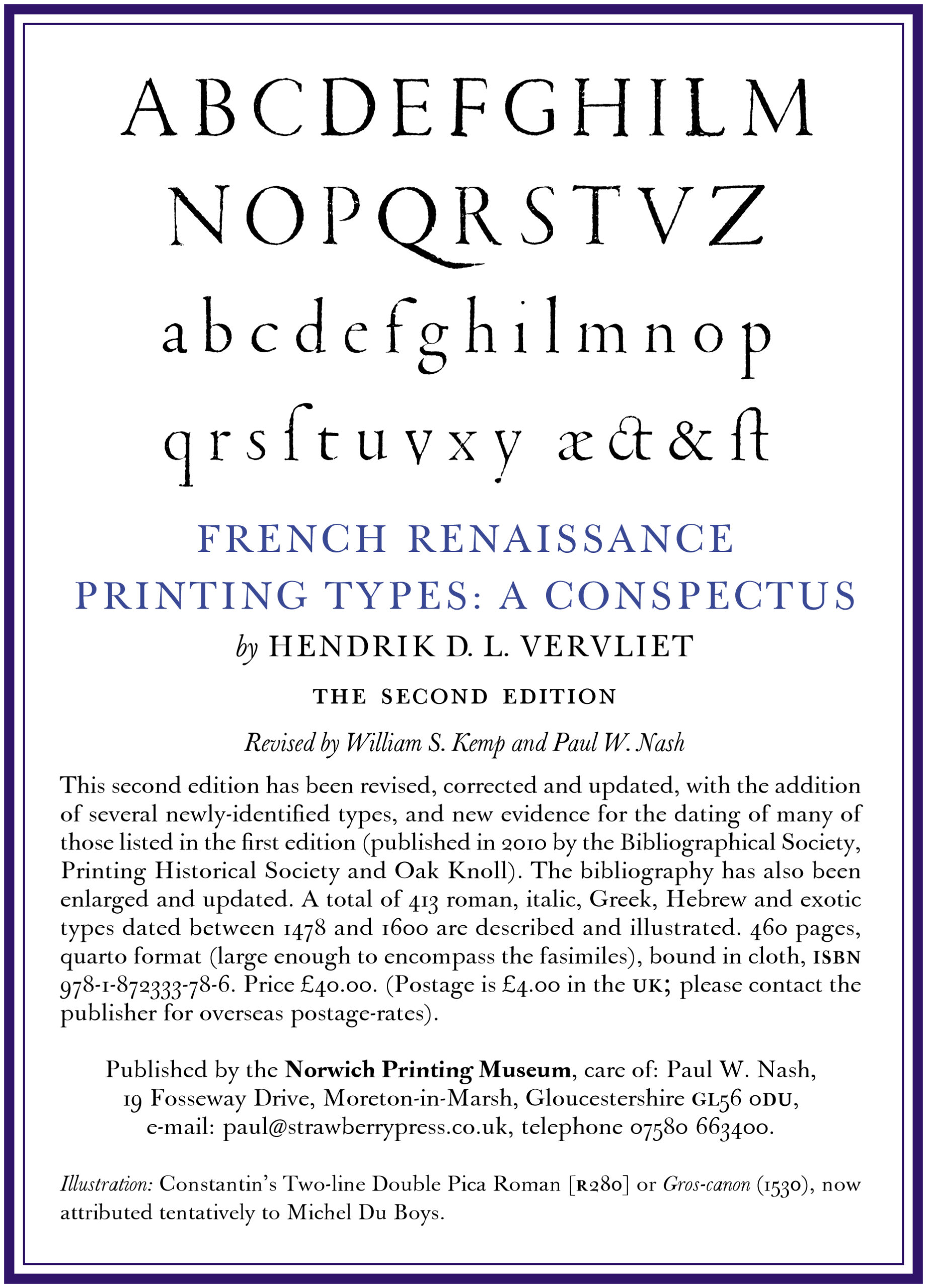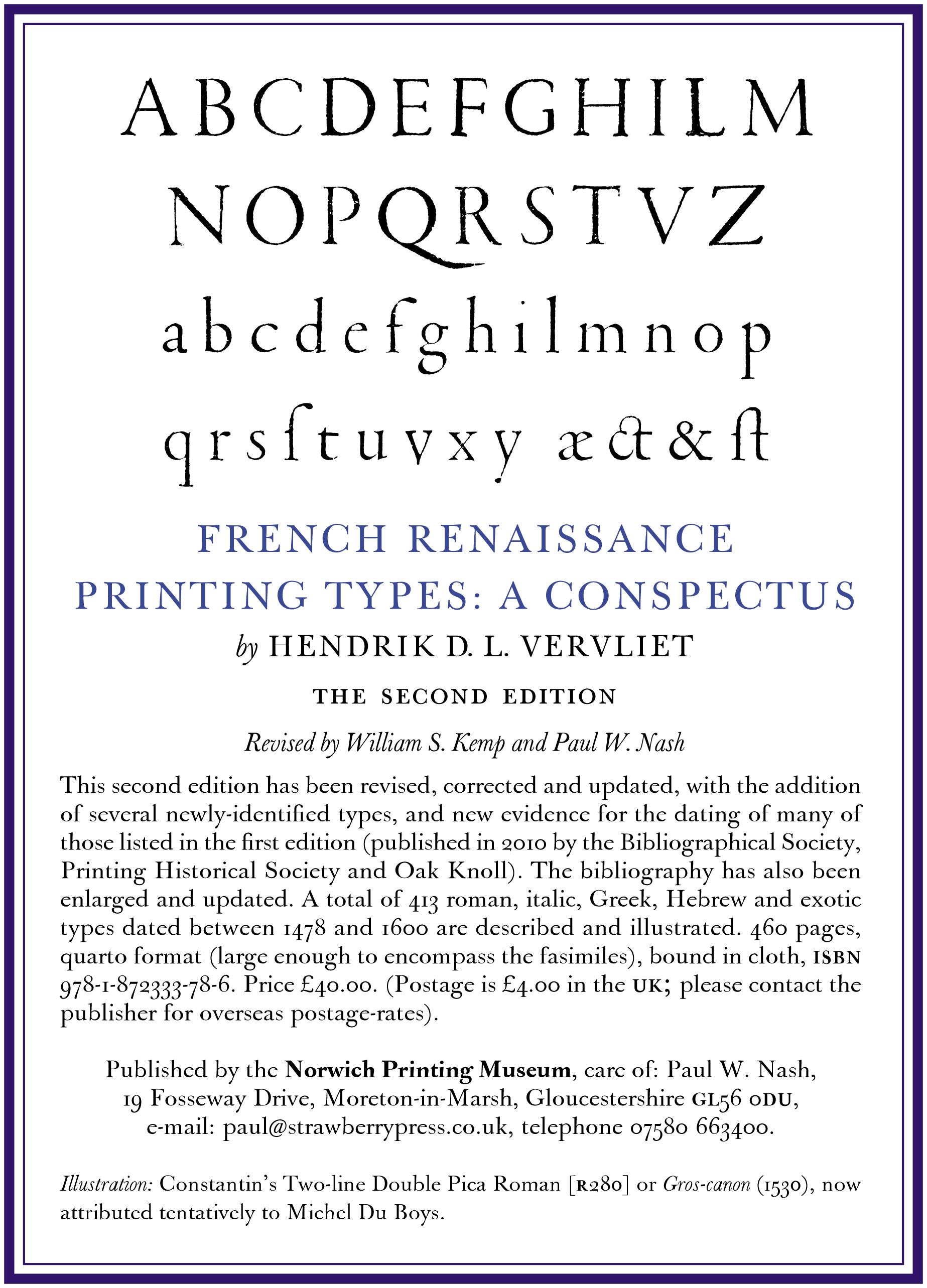
Second edition of Hendrik Vervliet’s Conspectus of French Renaissance printing types
This second edition has been revised, corrected and updated, with the addition of several newly-identified types, and new evidence for the dating of many of those listed in the first edition (published in 2010 by the Bibliographical Society, Printing Historical Society and Oak Knoll). The bibliography has also been enlarged and updated. A total of 413 roman, italic, Greek, Hebrew and exotic types dated between 1478 and 1600 are described and illustrated. 460 pages, quarto format (large enough to encompass the facsimiles), bound in cloth, ISBN 978-1-872333-78-6. Price £40.00 (postage is £4.00 in the UK; please contact the publisher for overseas postage-rates).